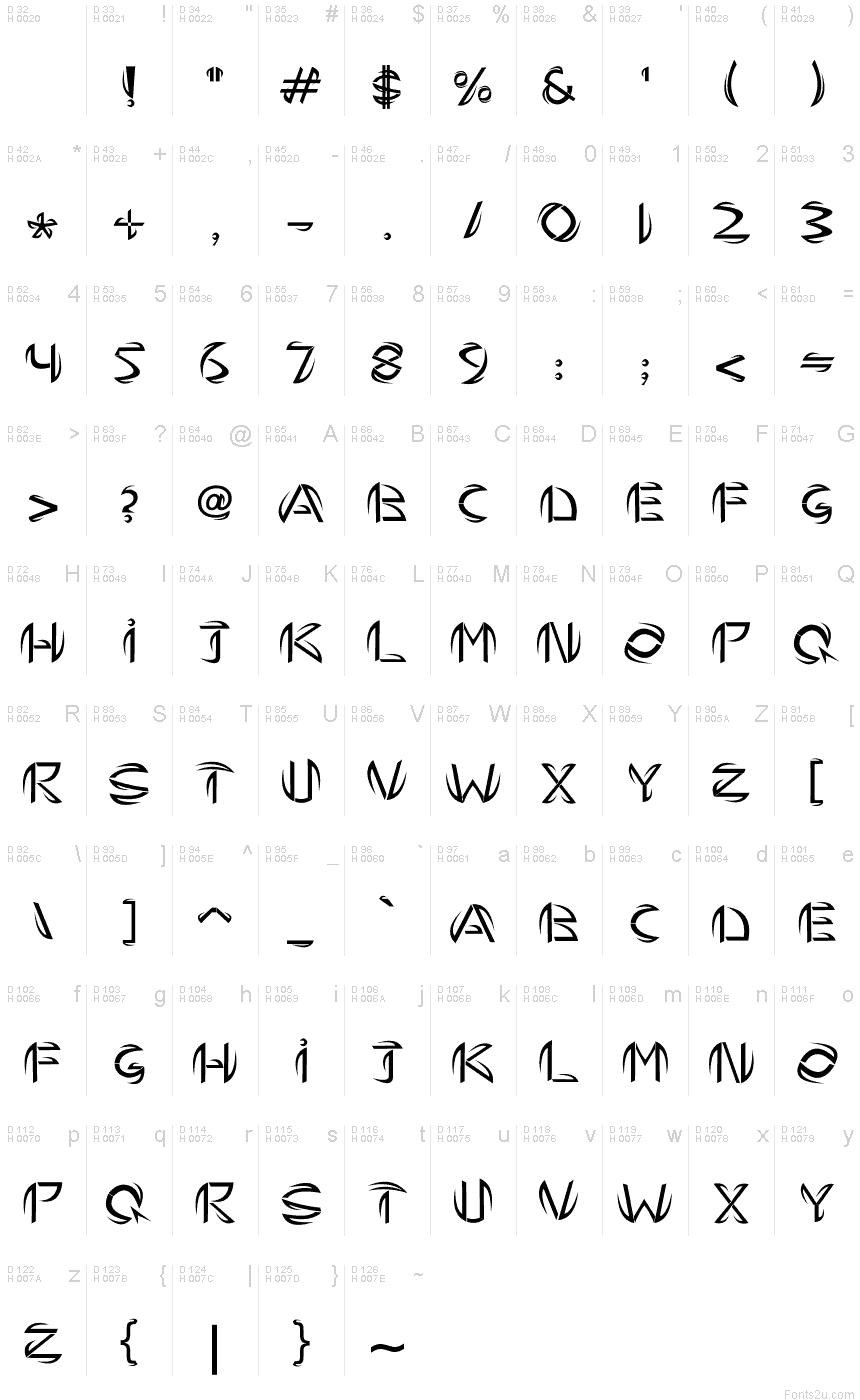
TEMHOSS (By: HAsAN)
TEMHOSS by HAsAN is a free gothic caps font with a sharp, carved look that feels closer to ritual lettering than standard blackletter. The letters are built from tall wedges, crescent cuts, and sweeping blade-like curves, so the font reads as austere and dramatic rather than ornate.
It fits music artwork, poster titles, fashion branding, game title cards, and dark editorial cover lines where a few letters need atmosphere more than decoration. As a free font, TEMHOSS works best in short display settings, monograms, and logo-style headlines, because those long pointed strokes and split curves give even brief words a strong emblematic shape.